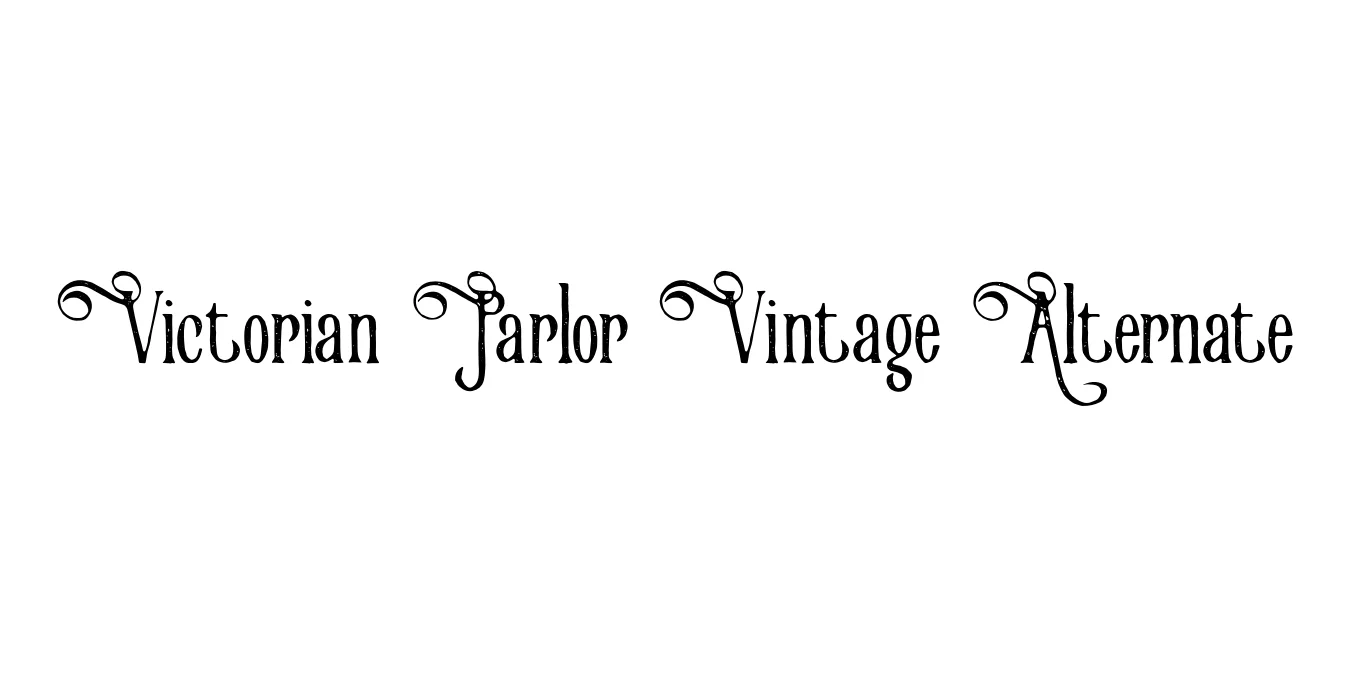
Victorian Parlor Vintage Alternate
Designed by Burntilldead (Eric Saputra)
Victorian Parlor Vintage Alternate is a meticulously crafted typeface from the creative studio Burntilldead. Drawing deep inspiration from the late 19th-century aesthetic, this font family captures the essence of classic Victorian signage and commercial art. It features elegant, high-contrast serifs combined with intricate flourishes that evoke a sense of historical grandeur and artisanal quality.
The alternate version is specifically designed to provide users with more decorative options for vintage branding and packaging design. With its distinct character and nostalgic charm, it is widely utilized in modern projects that aim to convey heritage, luxury, and hand-crafted excellence. It remains a staple choice for designers looking to recreate the ornate look of antique letterpress printing.
Victorian Parlor Vintage Alternate Best Uses
Ideal for creating high-end, vintage-inspired brand identities.
Excellent for craft beverages, apothecary bottles, and boutique products.
Perfect for striking, decorative titles in print and digital media.
Adds a sophisticated historical touch to formal event invitations.